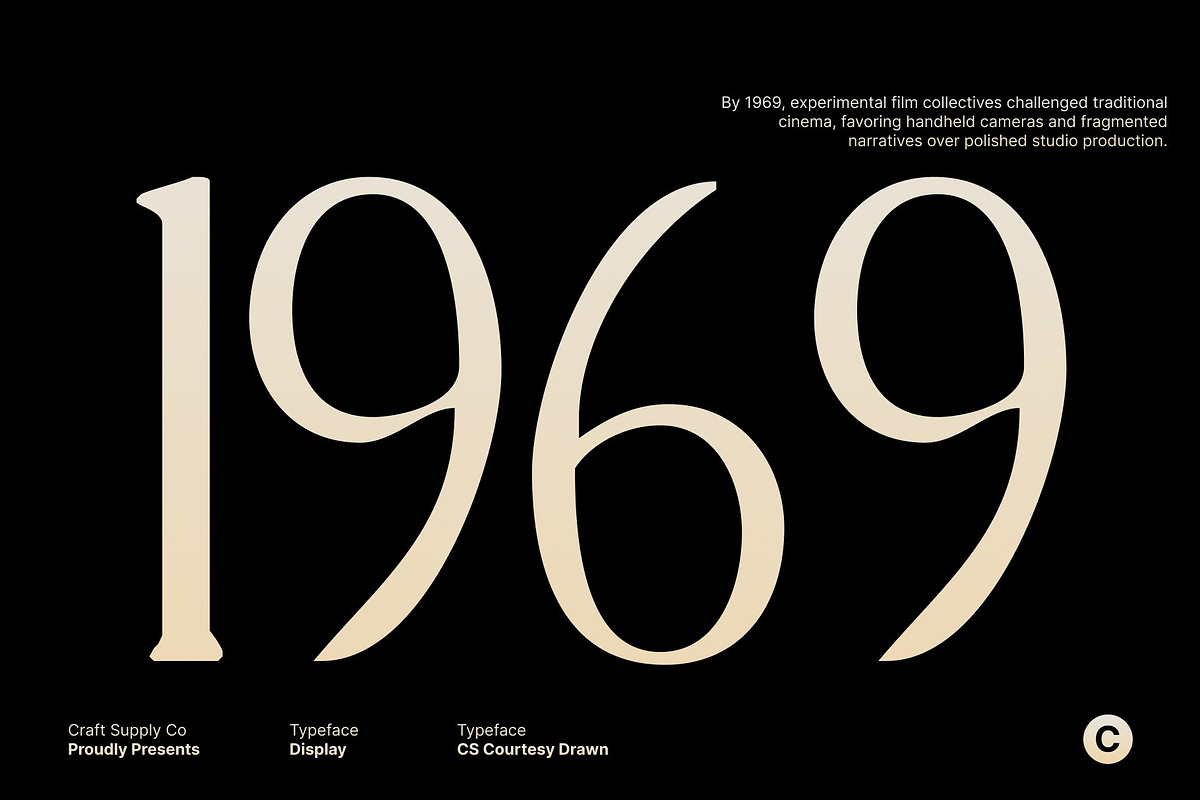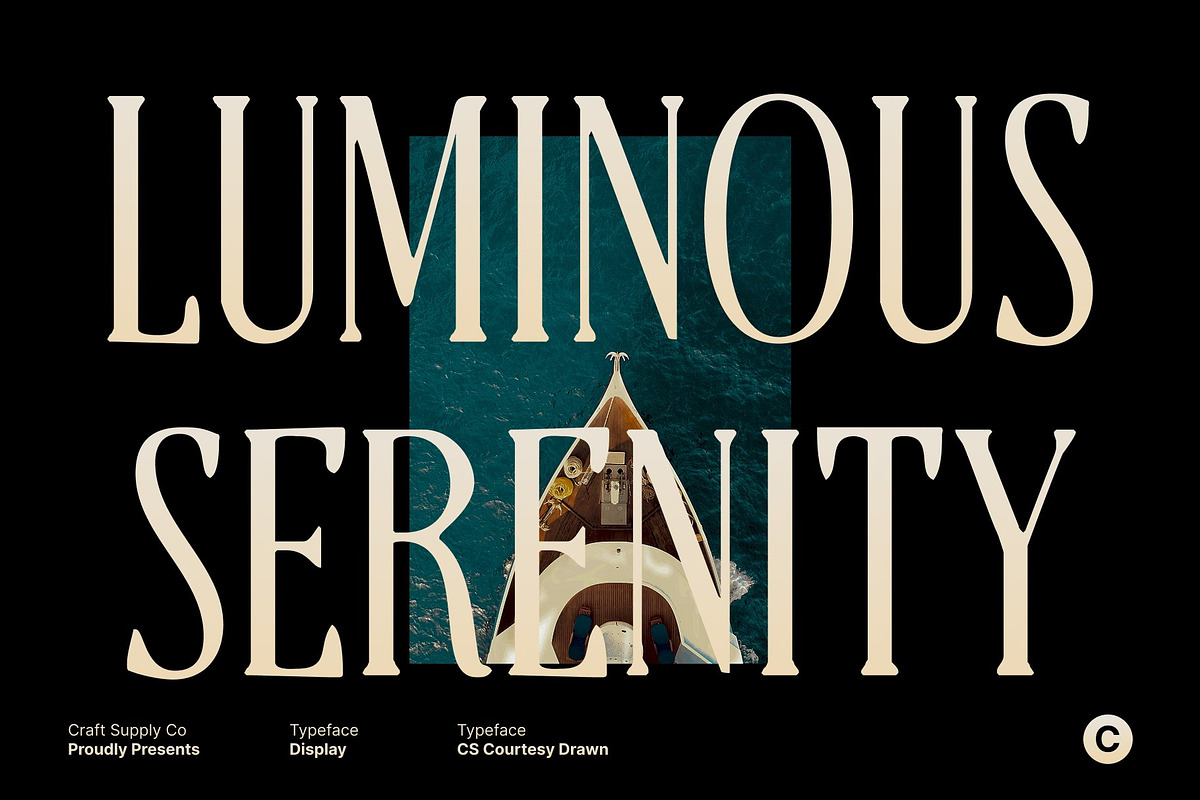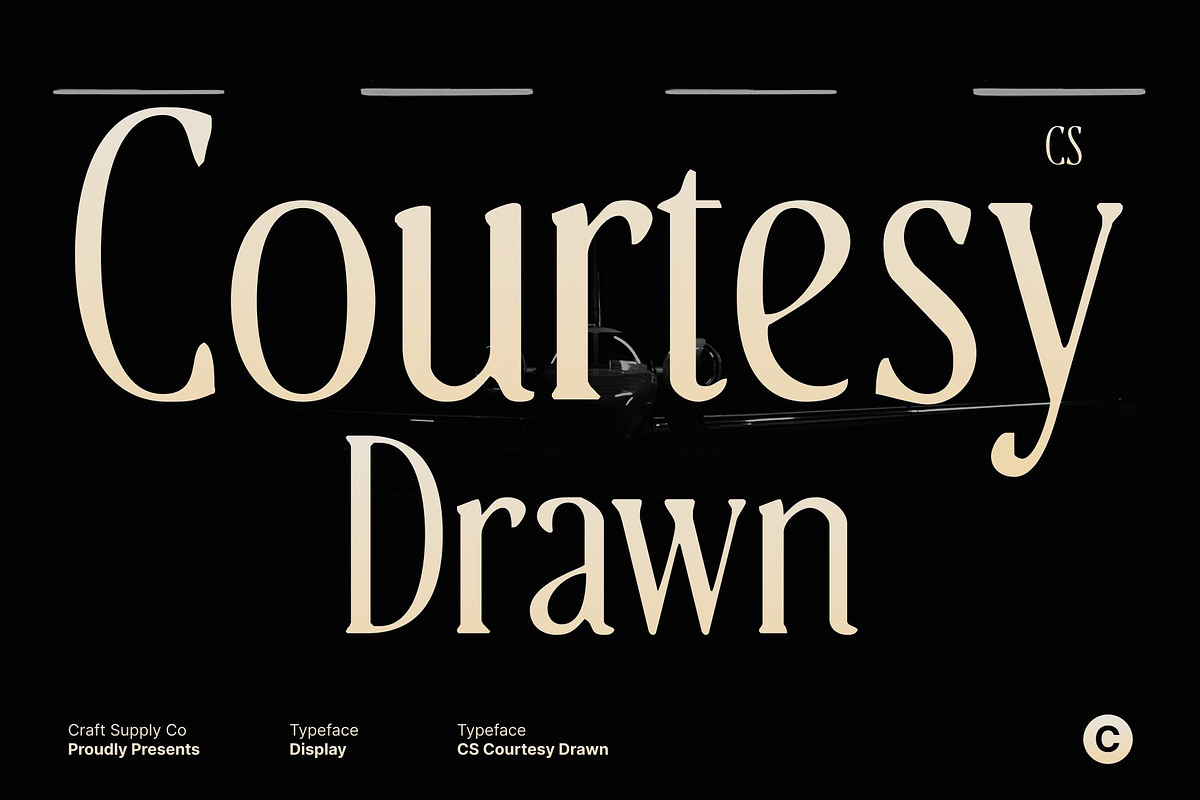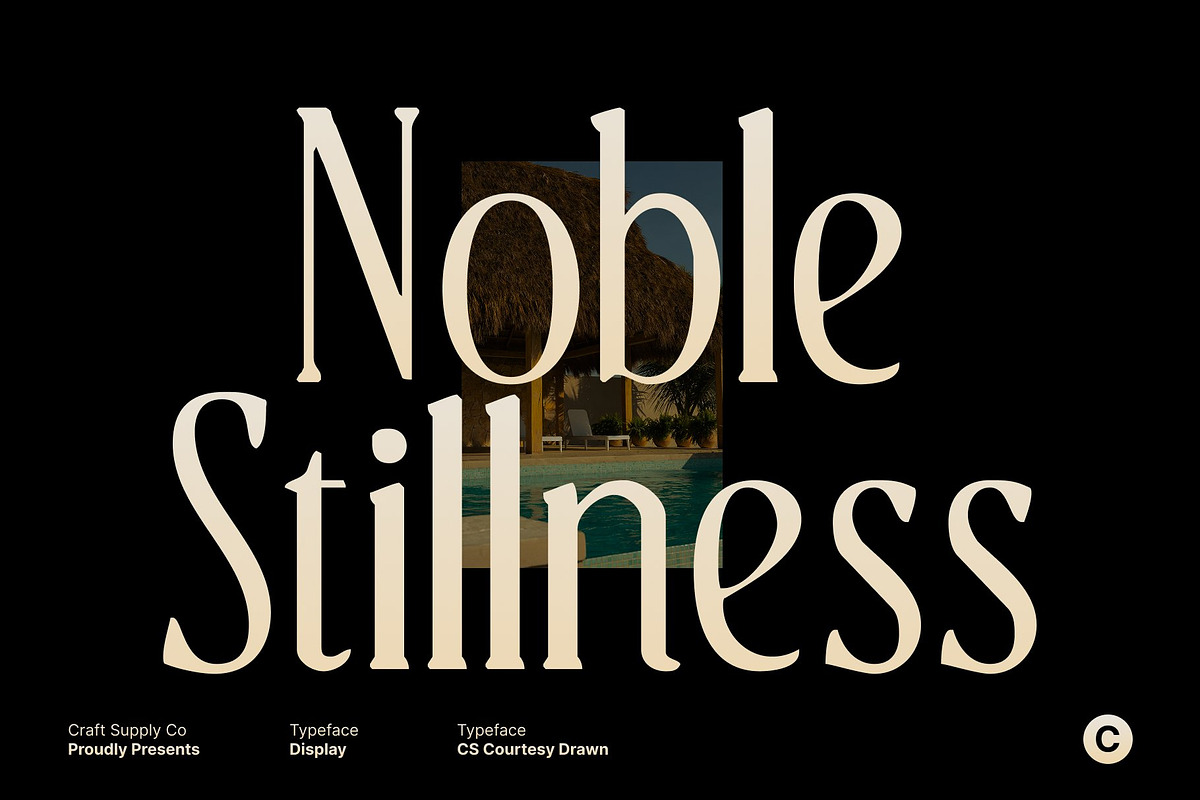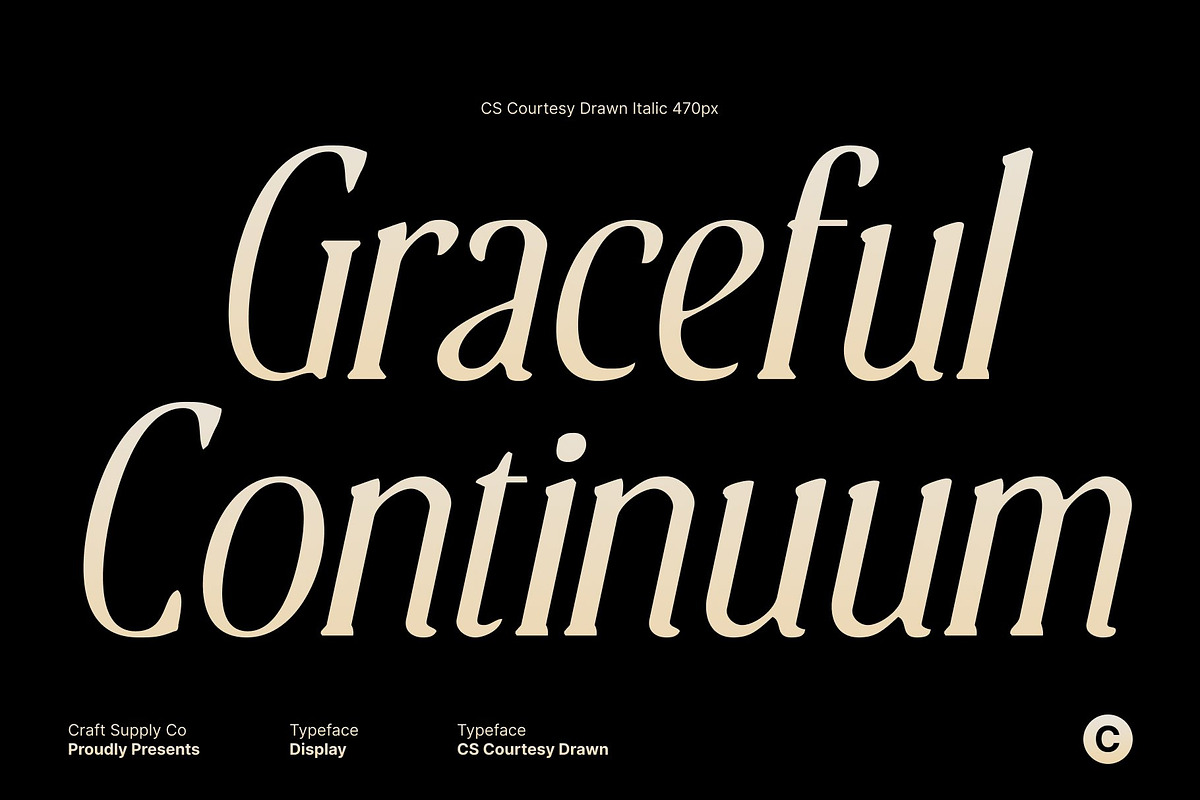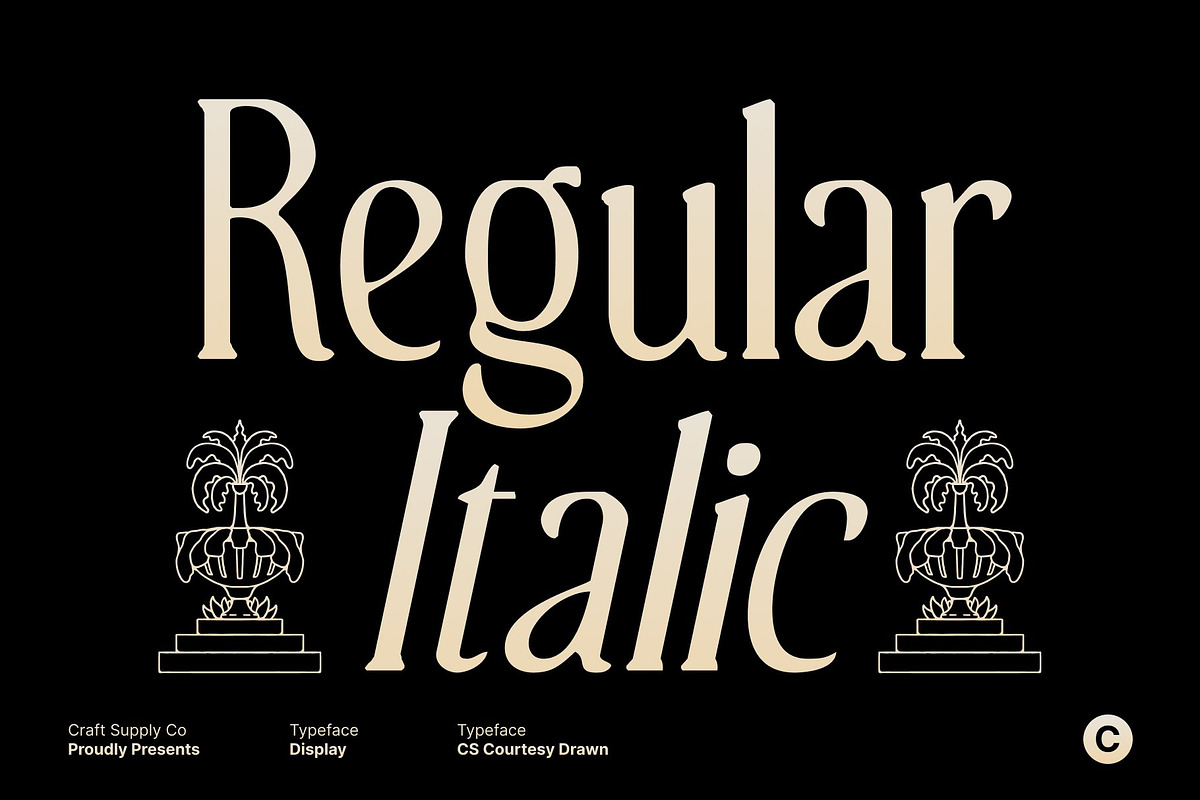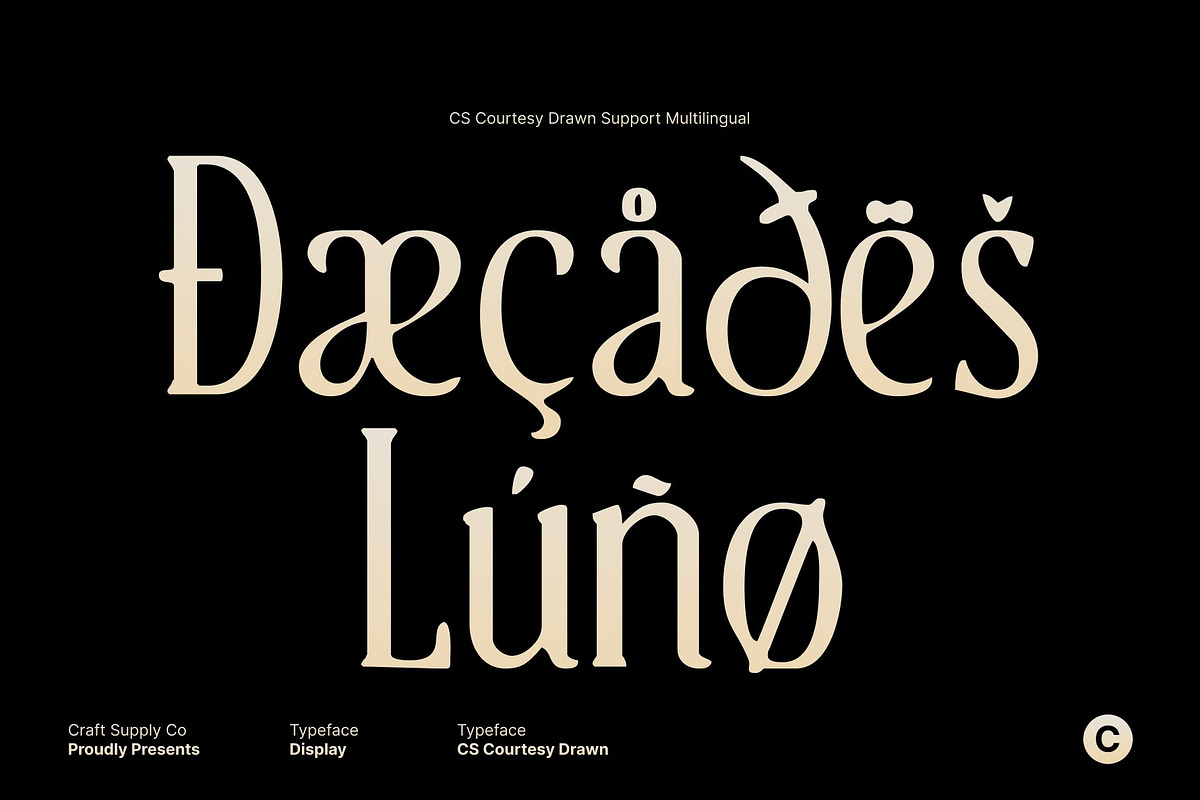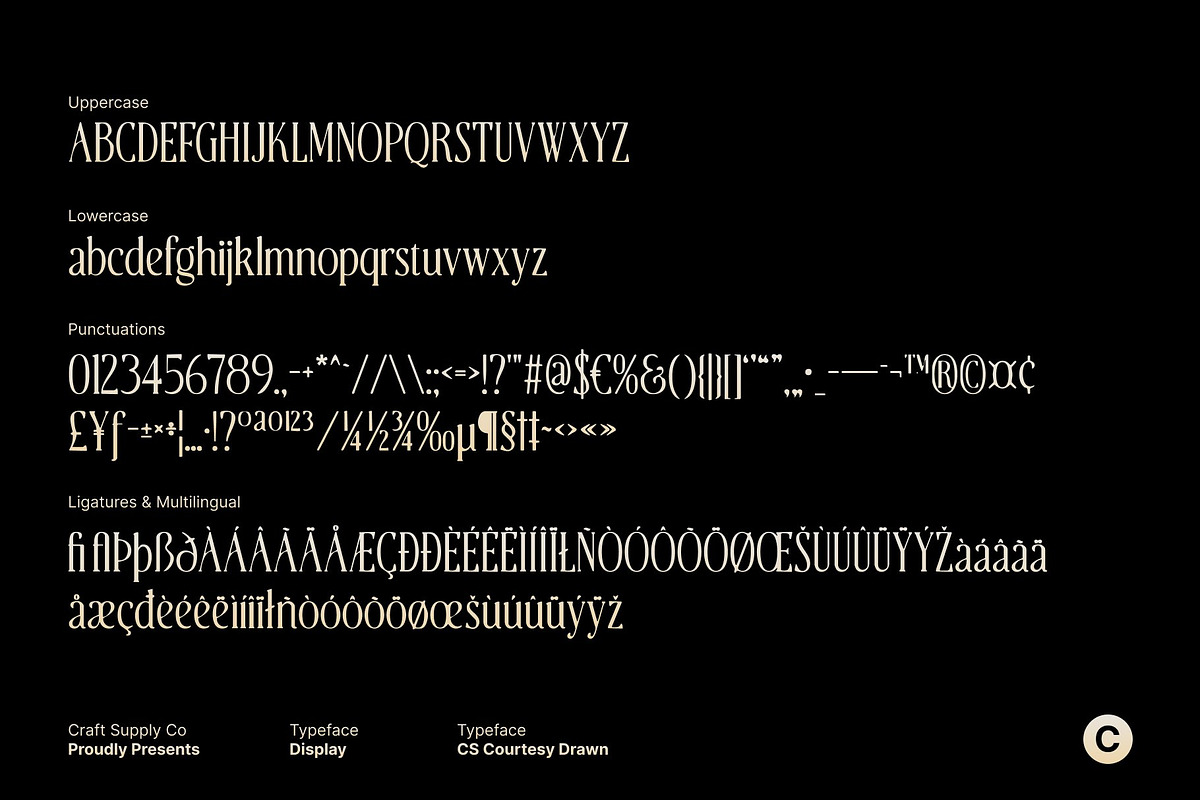
CS Courtesy Drawn
CS Courtesy Drawn – Slim Modern Serif with Handcrafted Refinement
Slim Modern Serif with Graceful Proportions This font is a slim modern serif font defined by graceful long serifs and clean, minimal shapes. Its refined proportions and balanced structure create a calm, sophisticated presence that feels contemporary and timeless. The slender letterforms give the typeface an airy, composed look, making it especially suitable for layouts that value clarity, elegance, and visual rhythm.
Drawn Texture for Handmade Depth The drawn texture adds a subtle handcrafted layer that enriches the font with depth and personality. Gentle imperfections and organic stroke variations introduce warmth and authenticity, preventing the minimalist structure from feeling too rigid. This handmade quality enhances the artistic side of the font while preserving its clean and refined appearance.
Clean Minimal Shapes with Artistic Expression This font blends minimal serif construction with expressive detail. The long serifs add grace and sophistication, while the drawn texture introduces creative nuance and softness. This combination results in a typeface that communicates refinement without losing its artistic voice, making it suitable for both modern and expressive design contexts.
Ideal for Editorial, Posters, and Branding Designed for high-end applications, works beautifully in editorial layouts, posters, branding systems, and visual identities. Its slim structure, graceful serifs, and textured finish help create designs that feel thoughtful and polished. Whether used for headlines or refined brand statements, delivers a harmonious balance of refinement, creativity, and handcrafted elegance.